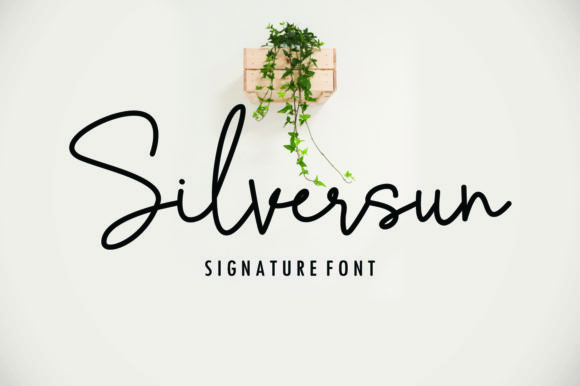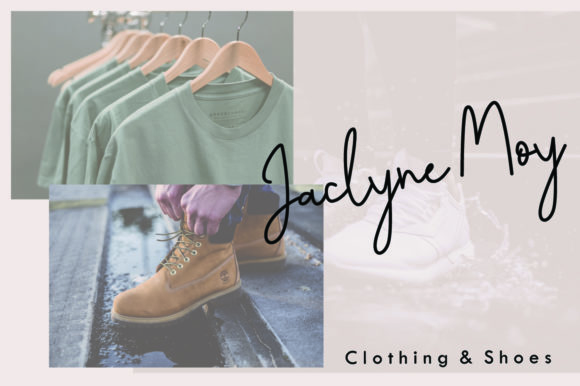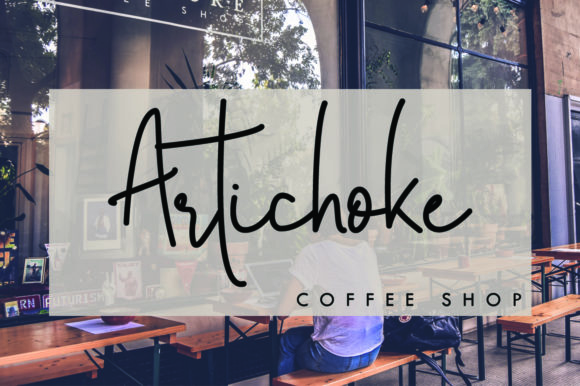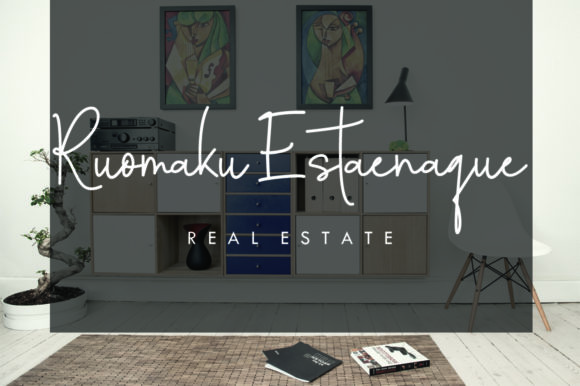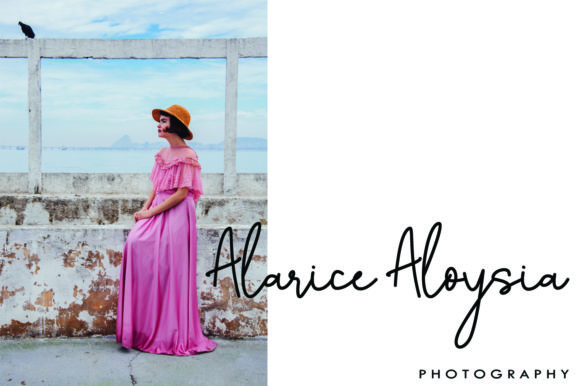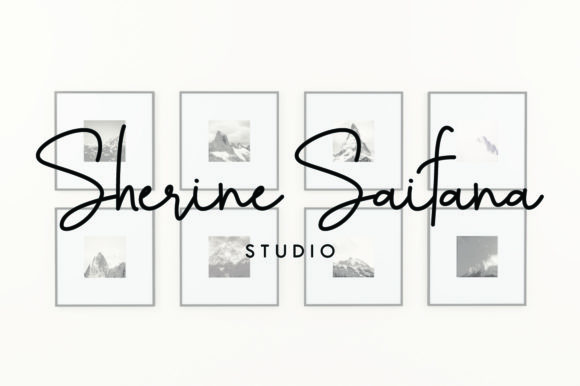
Silversun Font
About Silversun Font
The Silversun is an elegant handwritten signature script. It has a natural & stylish touch and is perfect for branding, wedding invitations, signatures, and much more!